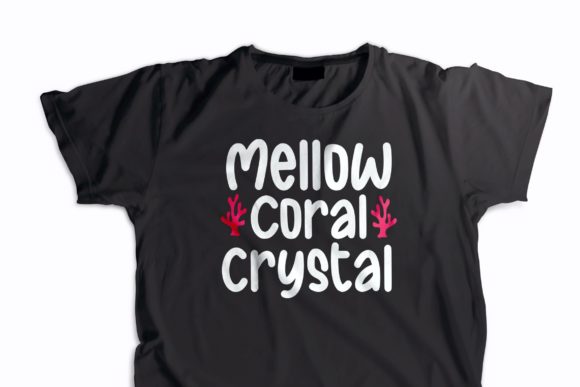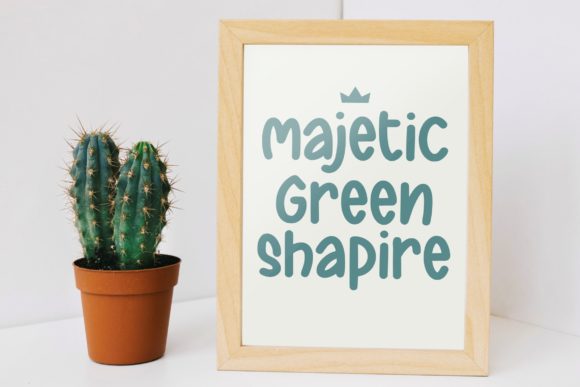
Dashing Unicorn Font: A Cute Handwritten Font for Cricut & Crafts
About the Dashing Unicorn Font
Get ready to be inspired by Dashing Unicorn Font, a fresh and dynamic typeface for modern creators. Dashing Unicorn is a sweet and colorful handwritten font. It has beautiful and neat characters and as a result, it matches a wide pool of designs. Add it to your most creative ideas and notice how it makes them come alive!
Dashing Unicorn’s playful energy and hand-drawn charm make it ideal for projects requiring a friendly, approachable feel. It excels in headlines, short-form text on packaging, social media graphics, and invitations. The font’s whimsical nature also lends itself well to children’s book illustrations or branding for businesses targeting a younger demographic.
However, its handwritten style is less suitable for large blocks of body text or UI elements where readability is paramount. The informality of the typeface may also clash with projects requiring a more serious or corporate aesthetic.
Pairing Dashing Unicorn effectively requires a contrasting yet harmonious companion. A clean sans-serif like Open Sans or Lato provides a strong counterpoint, enhancing legibility in supporting text. For a more sophisticated look, consider pairing it with a classic serif such as Garamond or a subtle script font for added elegance.
Dashing Unicorn Font Usage Examples
Dashing Unicorn Font Example